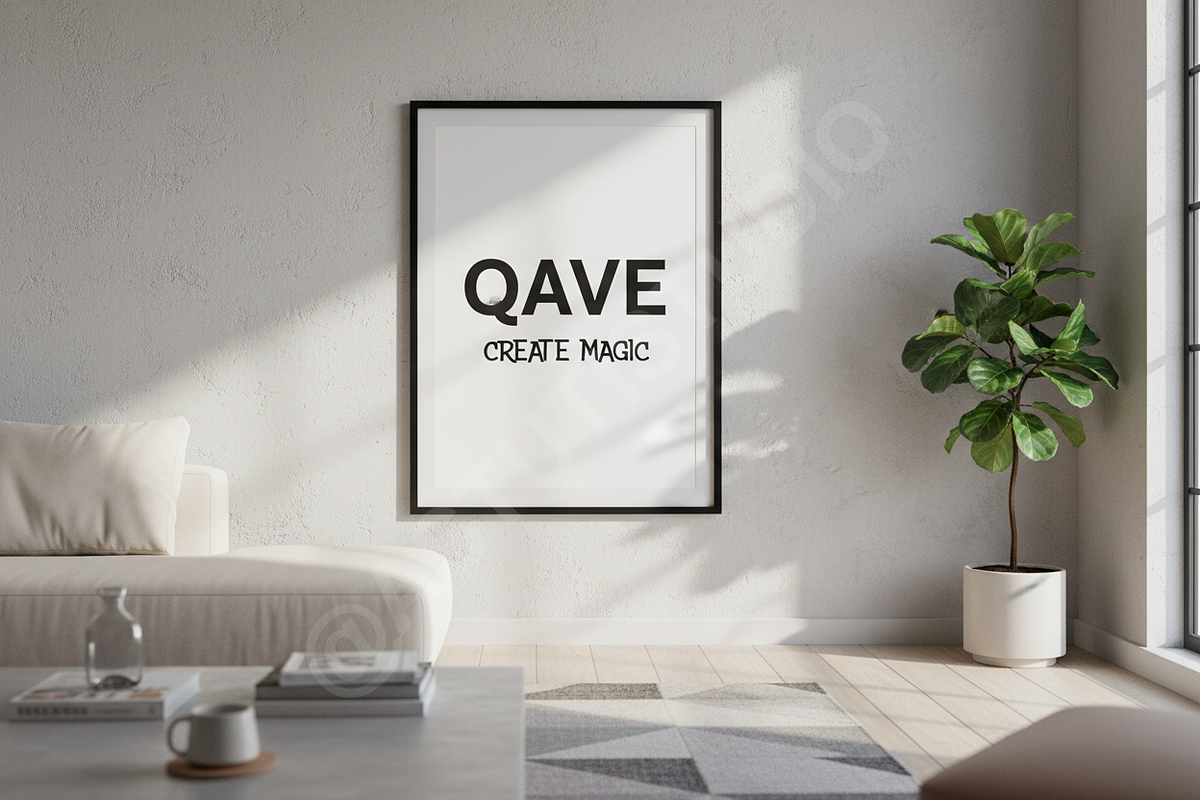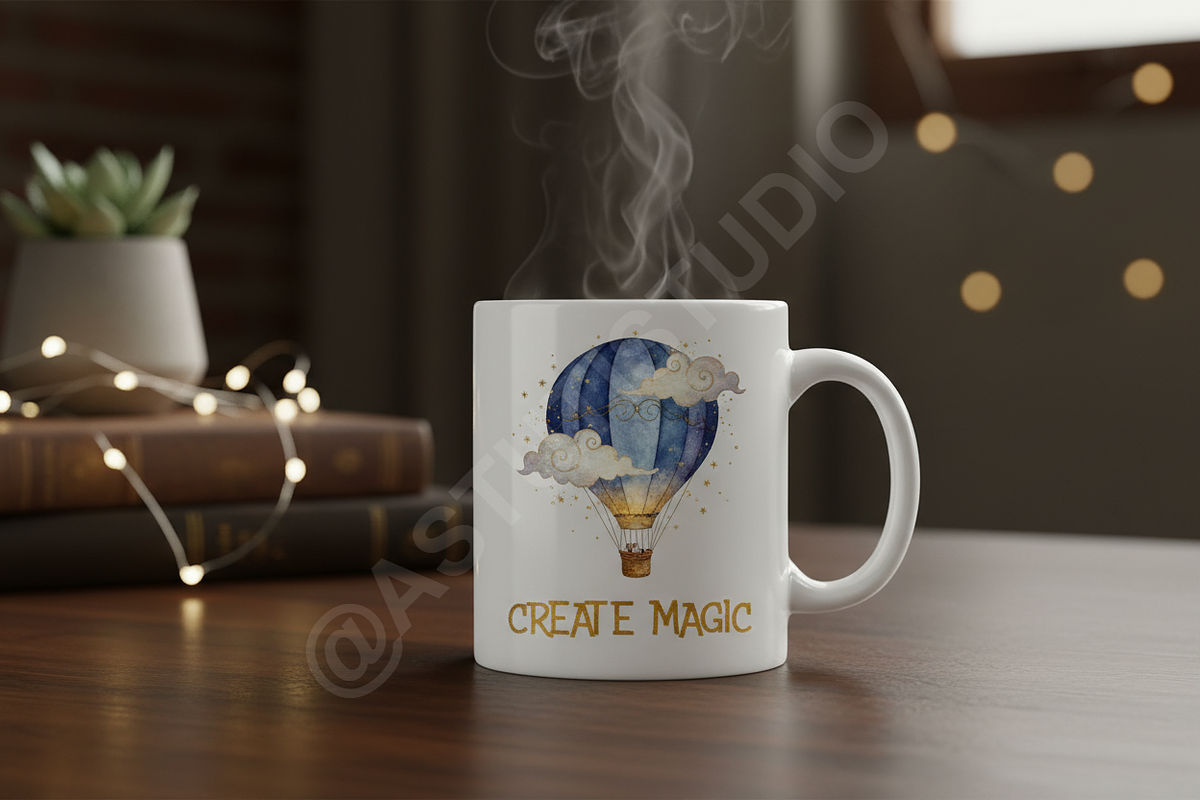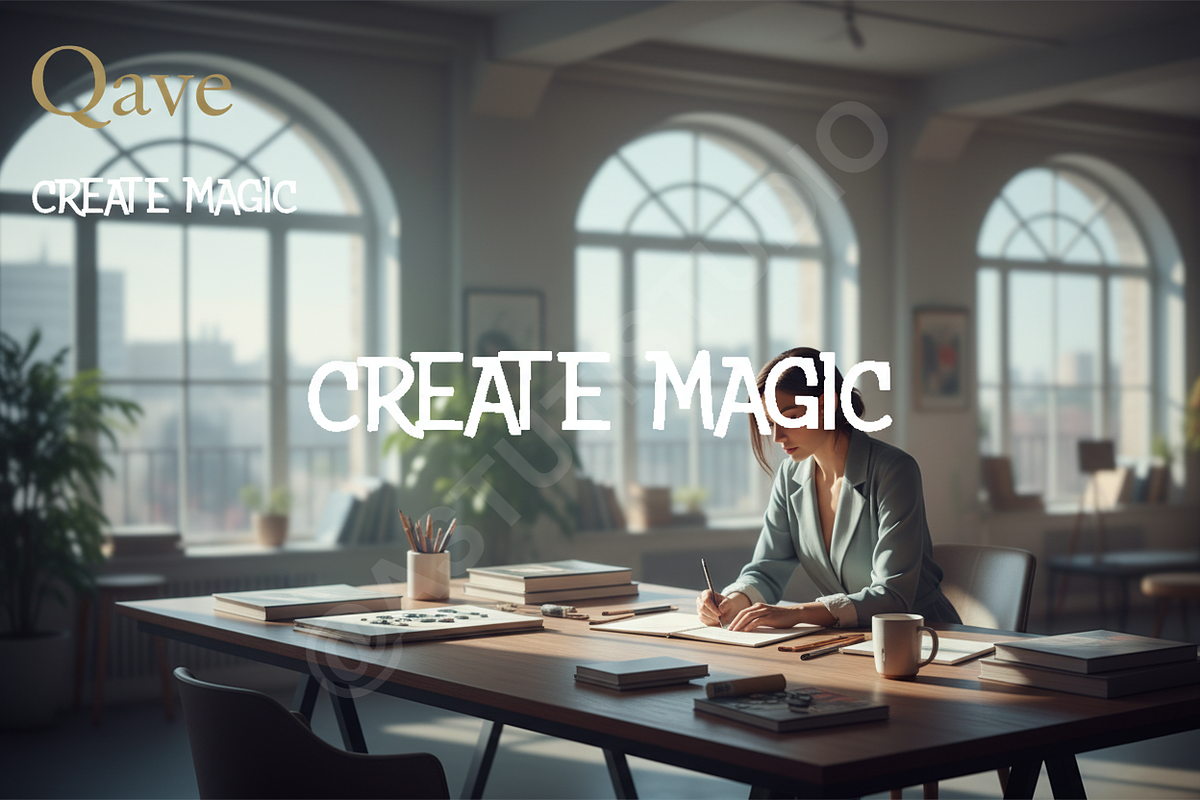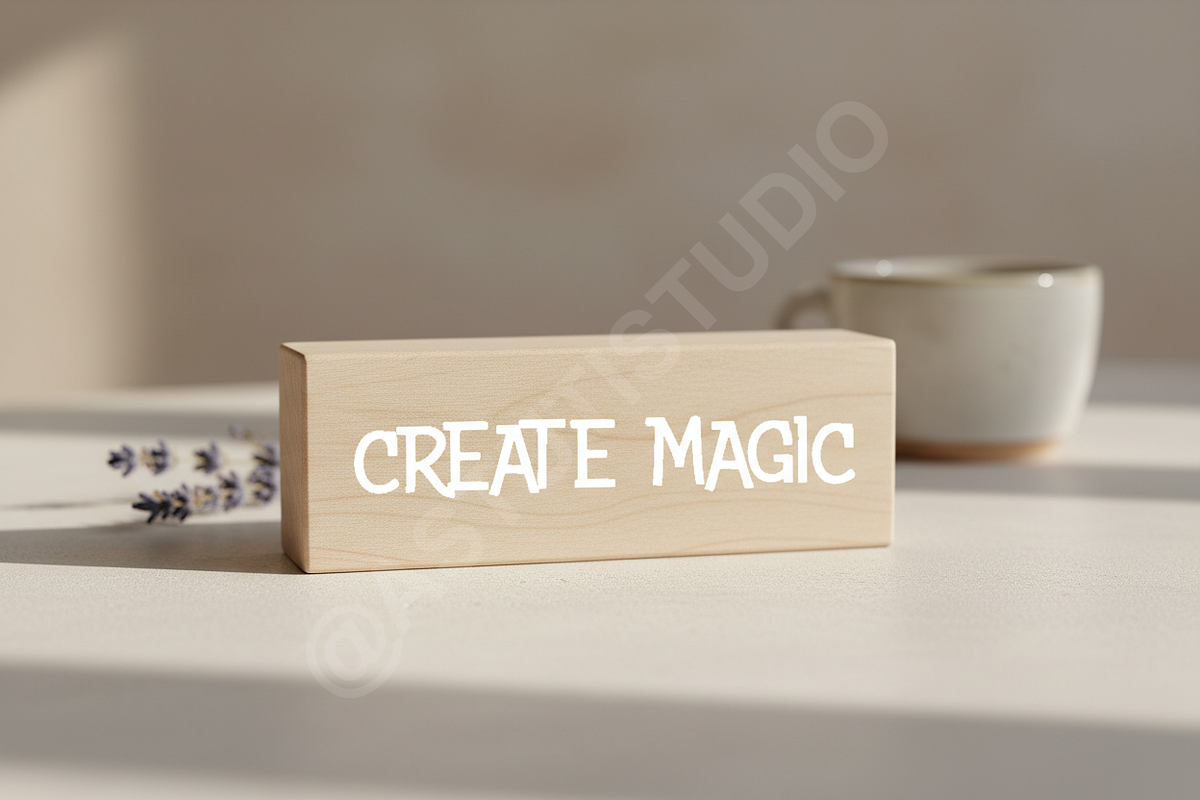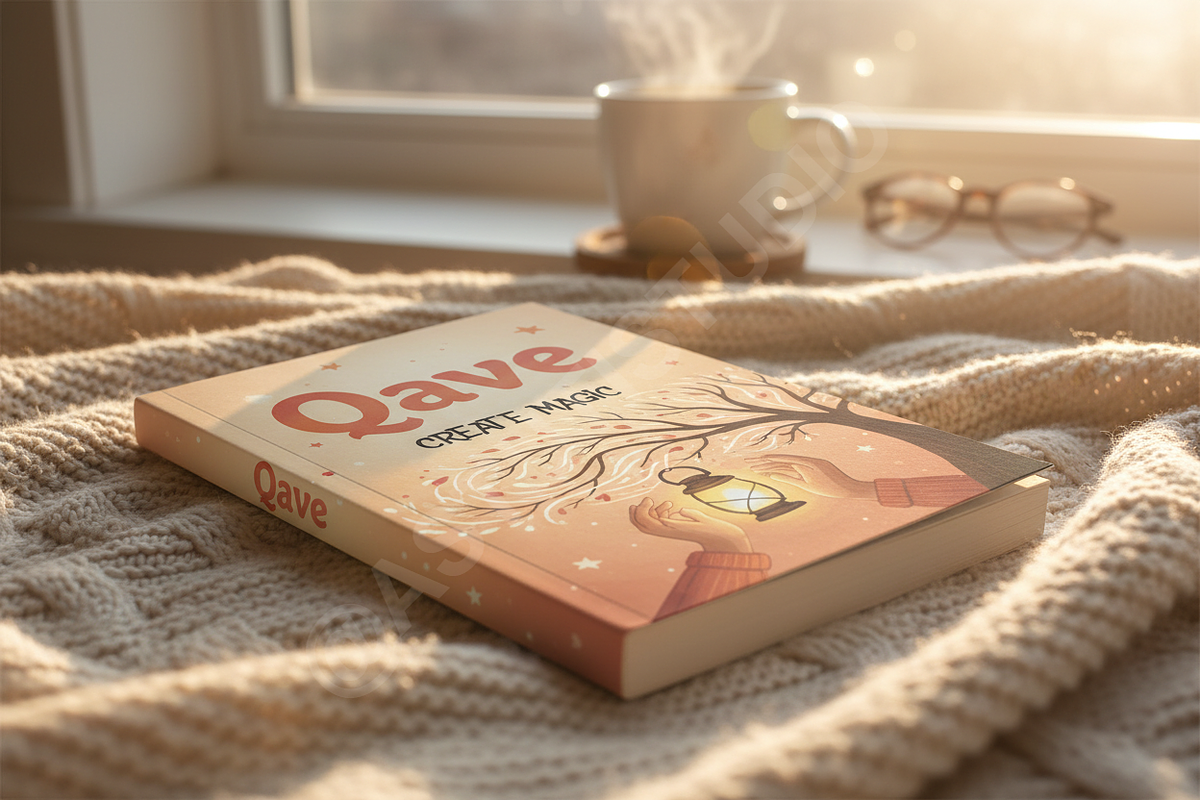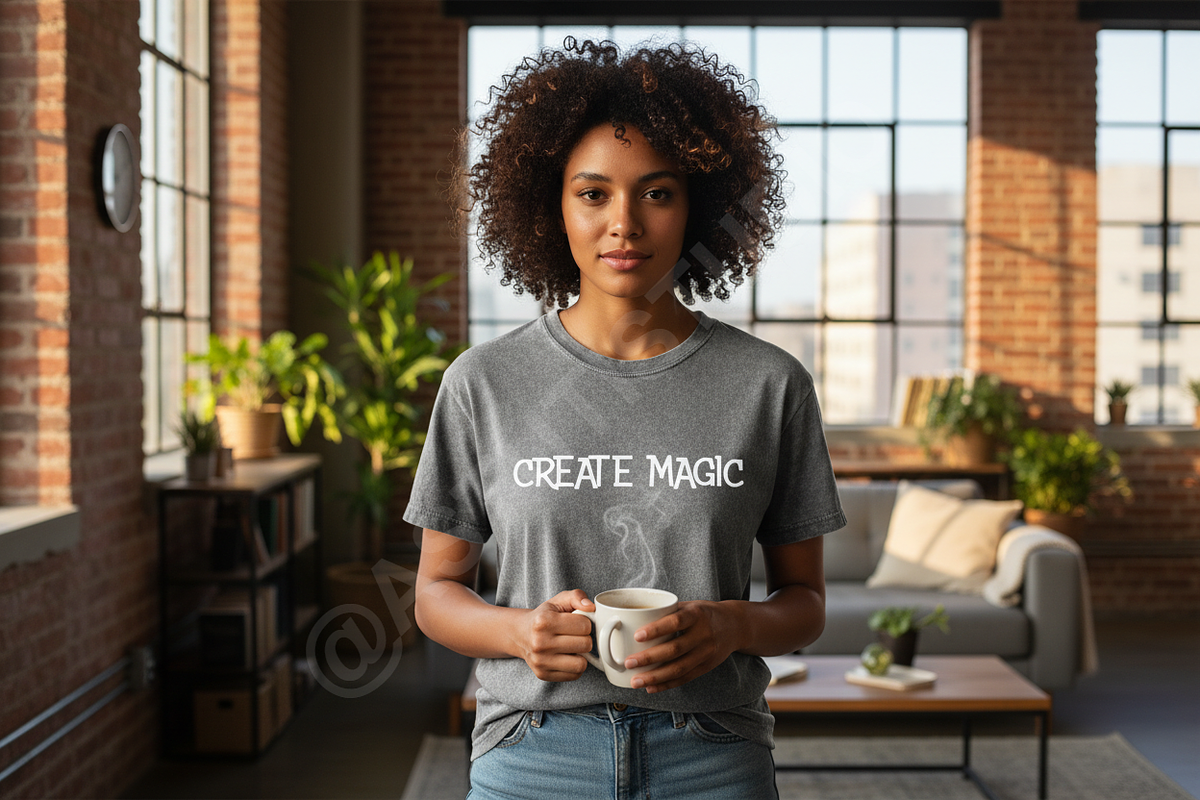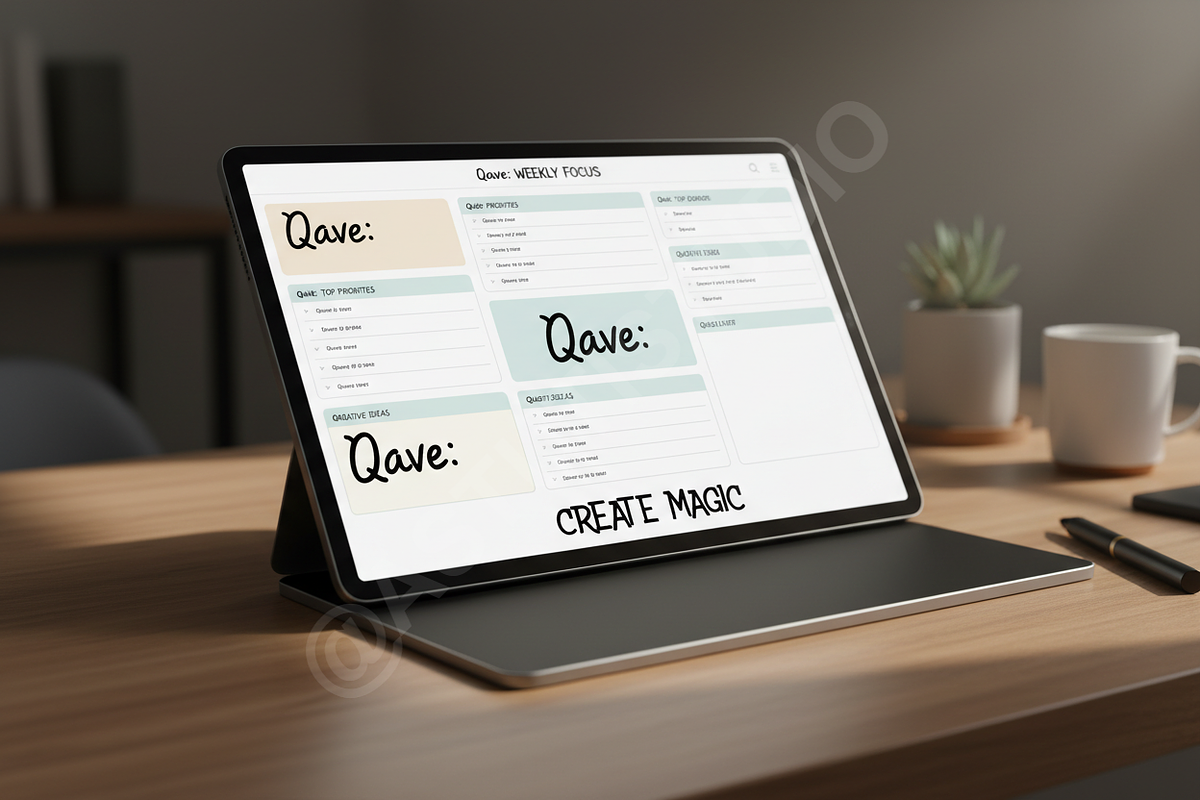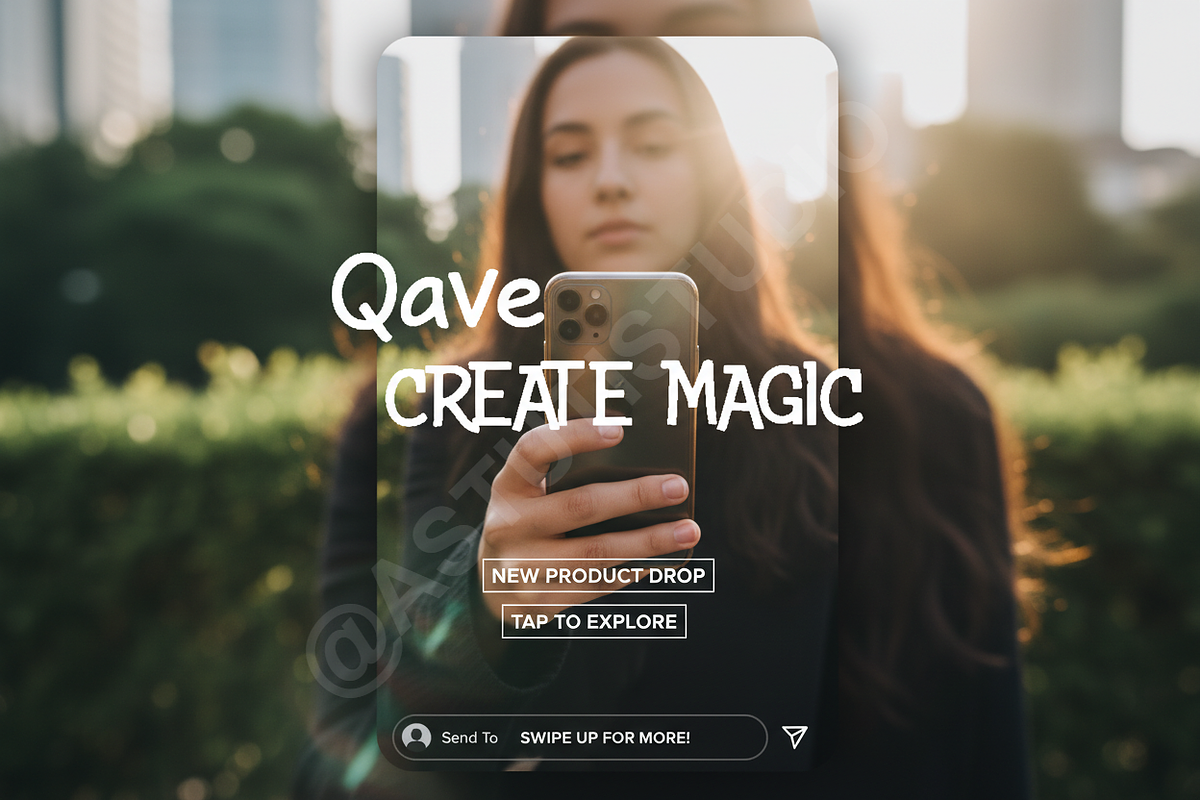
Qave | Luxury Modern Serif Typeface
INTRODUCTION
Meet Qave, a high-end serif typeface designed for the modern aesthetic. It exudes sophistication and timeless elegance, making it an essential tool for designers who prioritize refined craftsmanship. Whether you are crafting a brand identity for a luxury boutique or designing a sleek editorial layout, Qave provides the perfect balance of classic structure and contemporary flair.
Qave features sharp terminals, elegant ligatures, and a balanced weight distribution. It is optimized for high-resolution displays and print, ensuring your typography looks flawless at any scale. The font family includes a range of discretionary ligatures that add a bespoke feel to your wordmarks and headlines.
PERFECT FOR
- Luxury branding and visual identities
- High-end editorial layouts and magazines
- Minimalist social media content
- Boutique packaging and stationery
- Wedding invitations and upscale event signage
- A comprehensive set of uppercase and lowercase characters
- Extensive multilingual support
- Unique creative ligatures